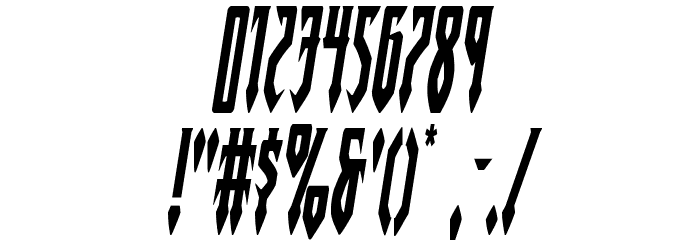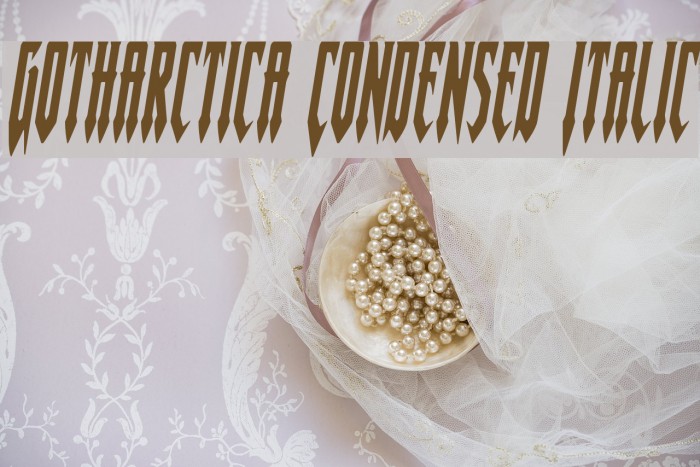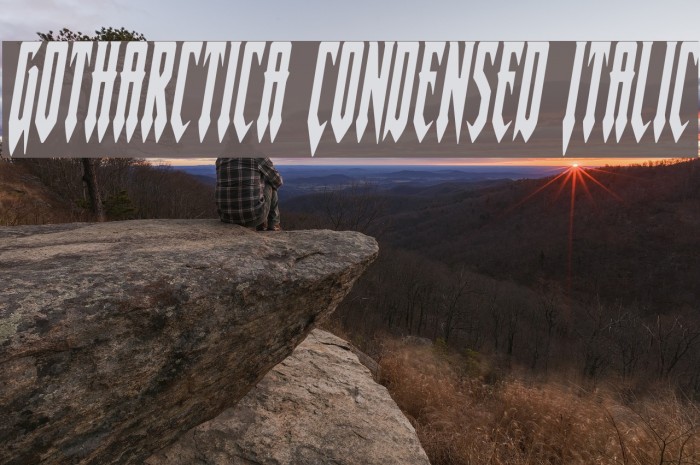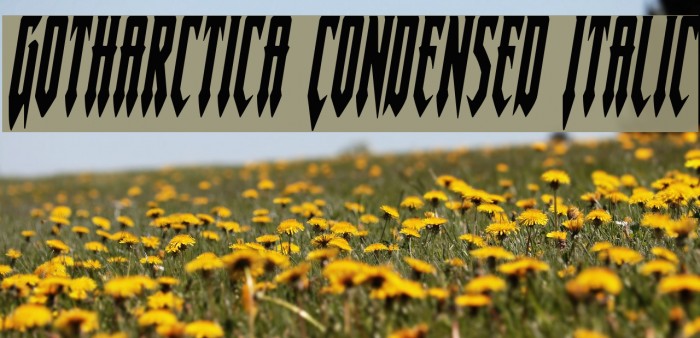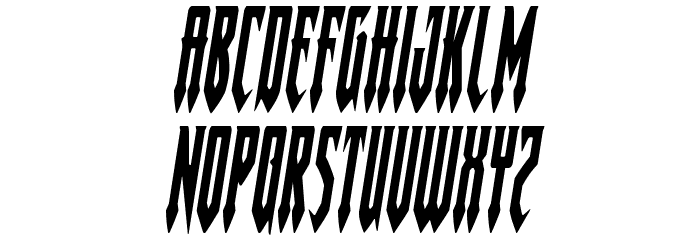
Gotharctica Condensed Italic Font
This font features a bold, condensed style with a distinct italic slant, giving it a dynamic and energetic appearance. The characters are sharply angular, with a futuristic and edgy design that stands out. The uppercase and lowercase letters maintain a consistent style, with tight spacing that enhances its compact look. The numerals and special characters follow the same angular and slanted design, ensuring uniformity across all glyphs. This font's unique style makes it suitable for projects that require a modern and impactful visual presence.
A bold, condensed, and italic font with a sharp, futuristic style.
• Proposed Projects: Ideal for branding, posters, album covers, and any project needing a modern, edgy look.
• Category: Decorative/Display
• Width: Condensed
• Character Spacing: Tight
• Contrast: High
• Overall Style: Modern
• Use Case: Headlines, Logos